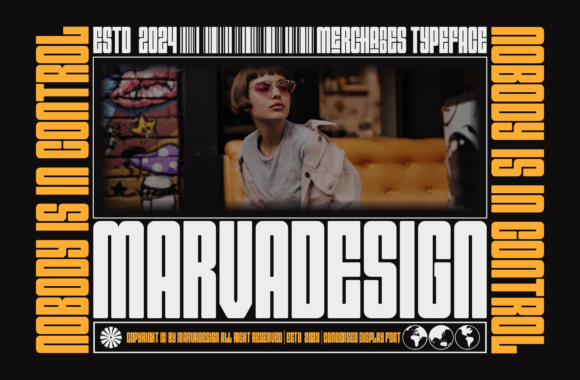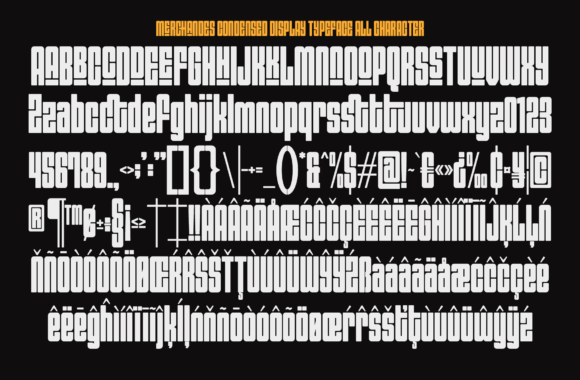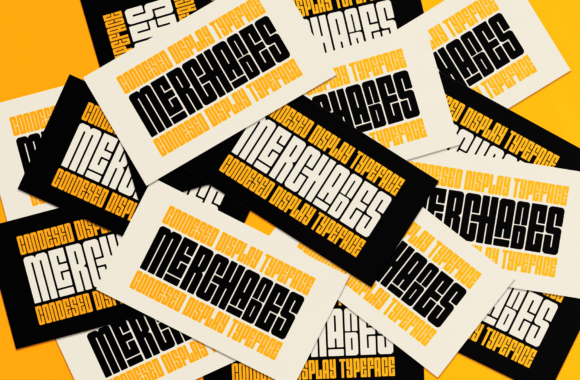
Introduction to Merchandes Font
Merchandes is a font style that is bold and tightly spaced, making it perfect for headlines, logos, and titles.
Its compact design helps it stand out and grab attention, even in small spaces .
Key Features of Merchandes Font